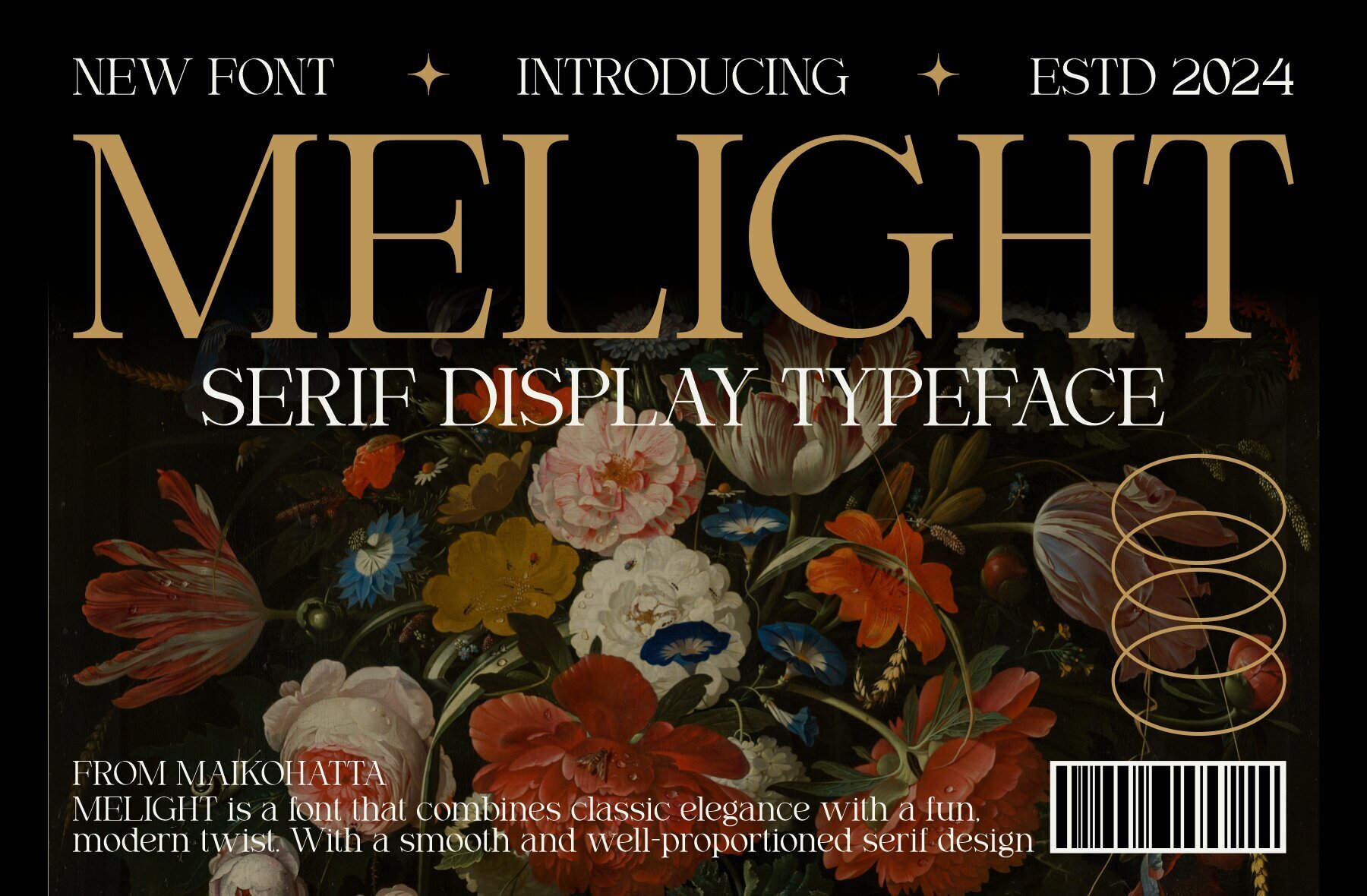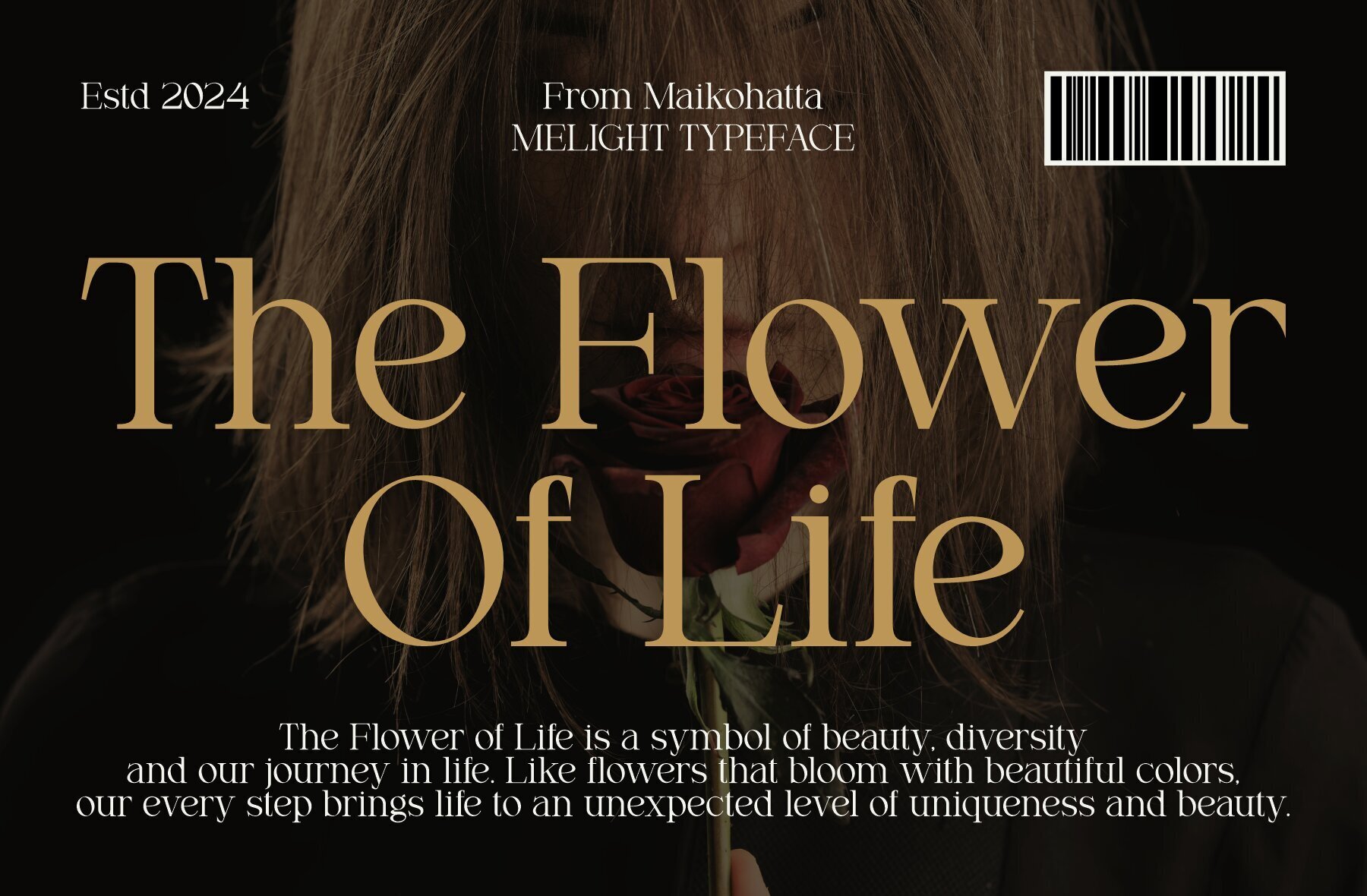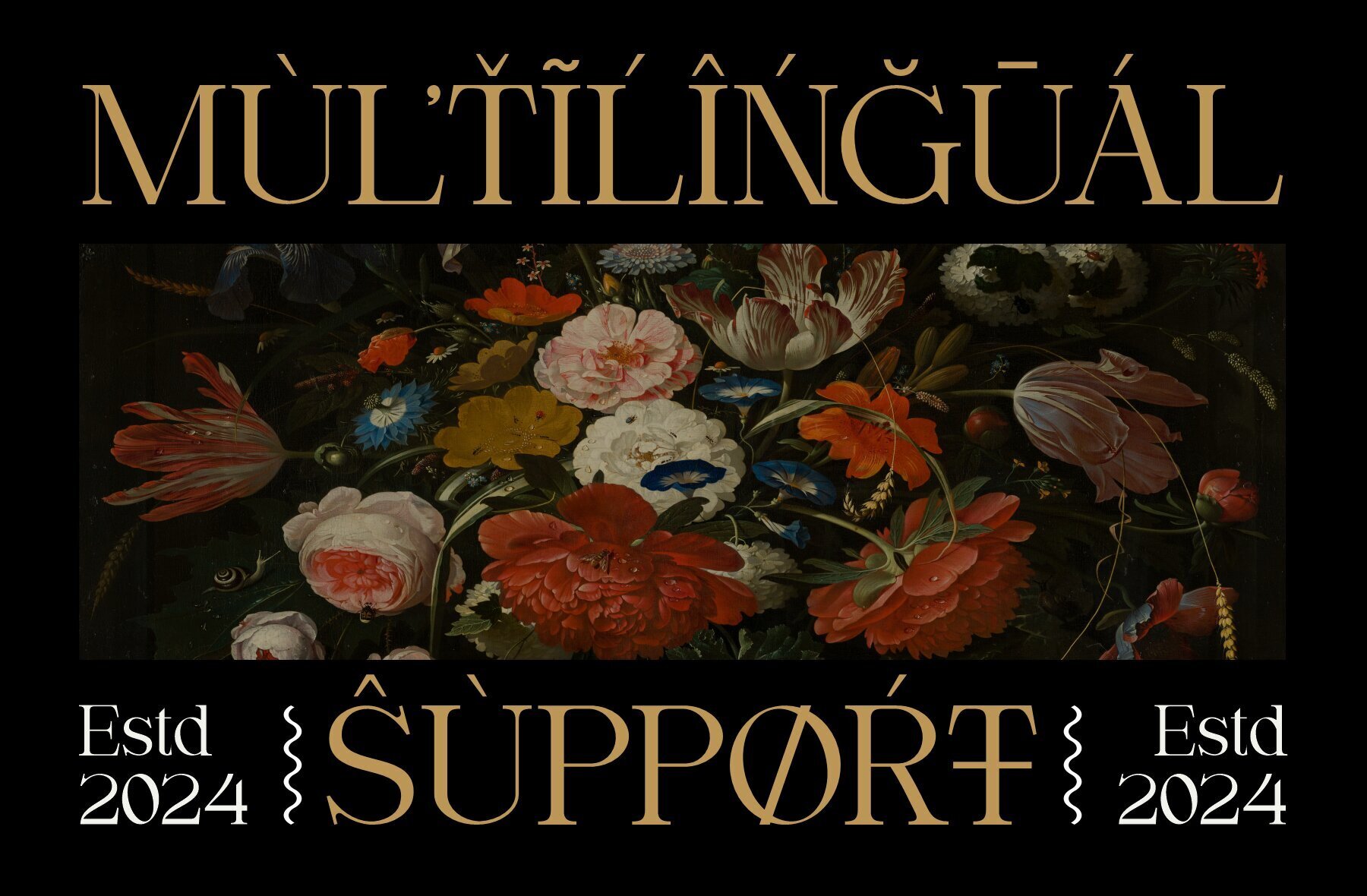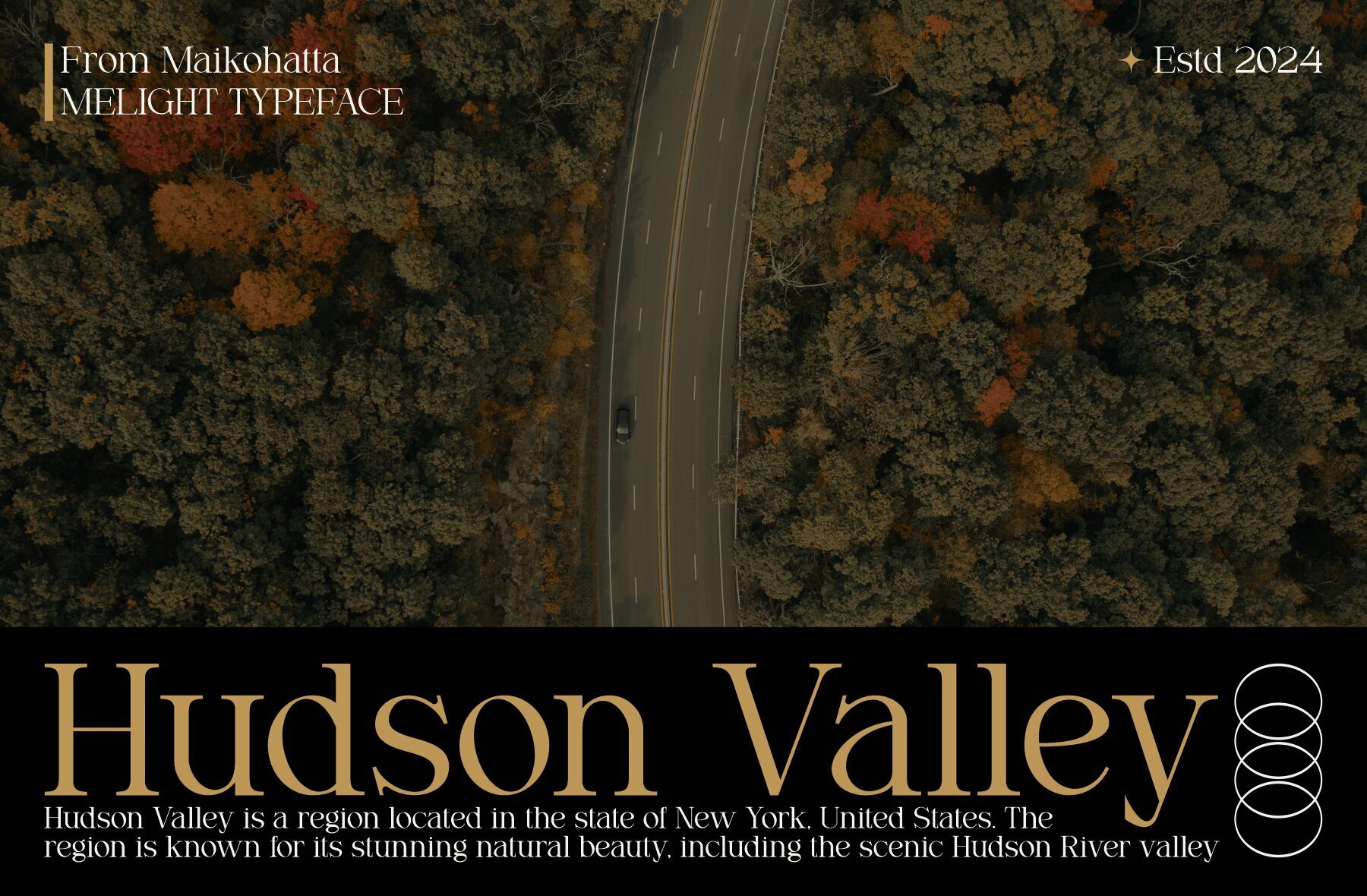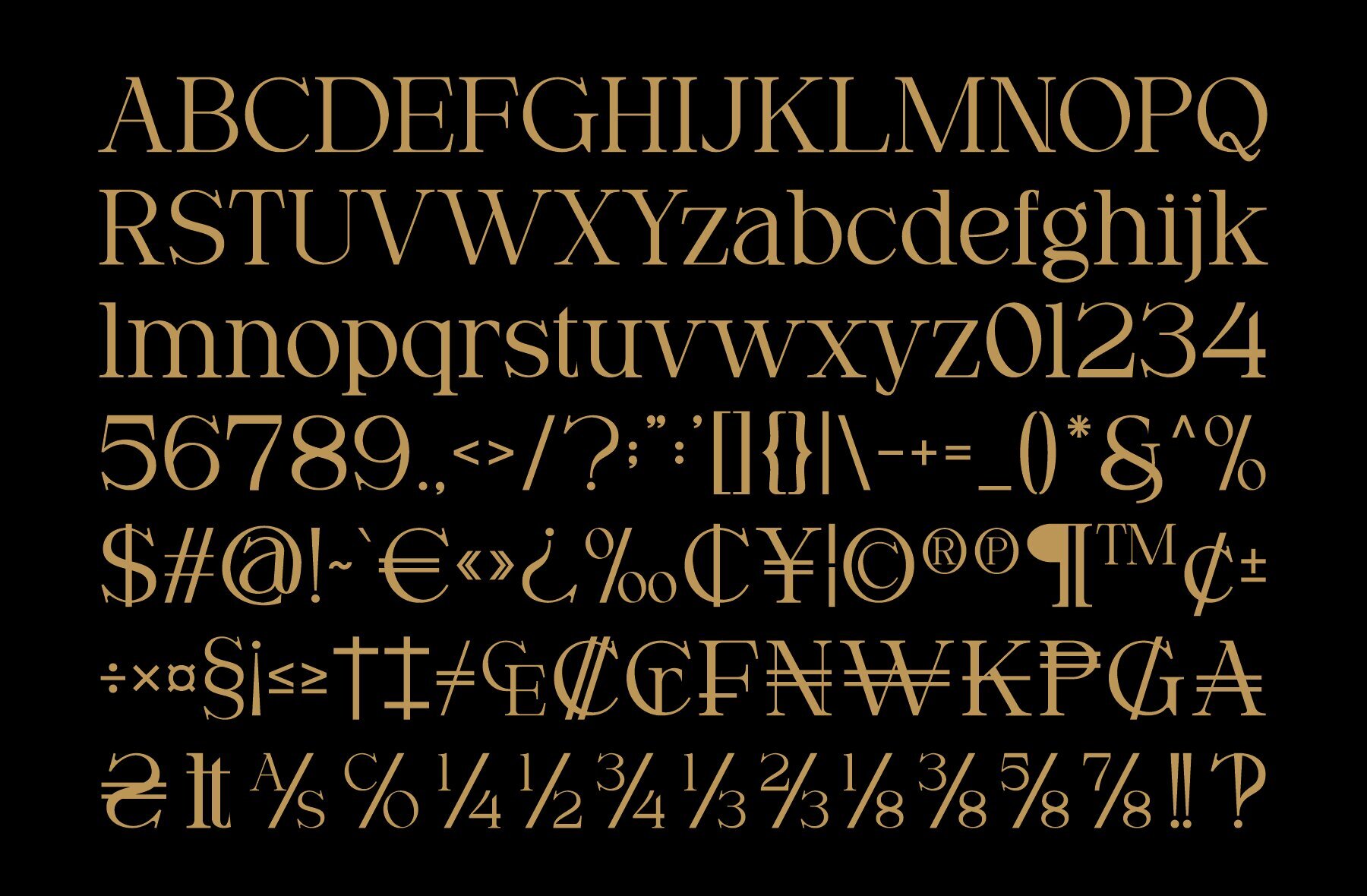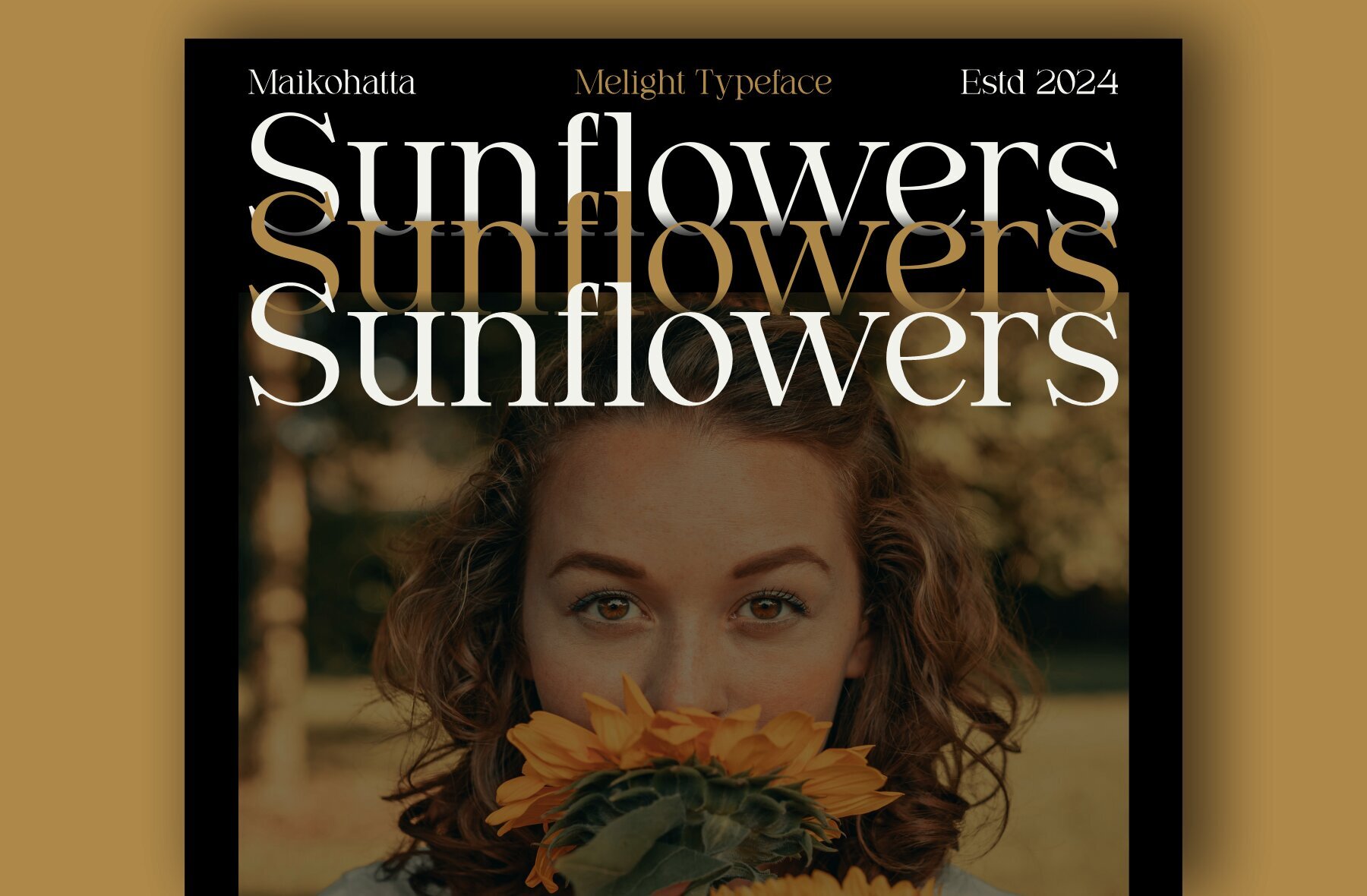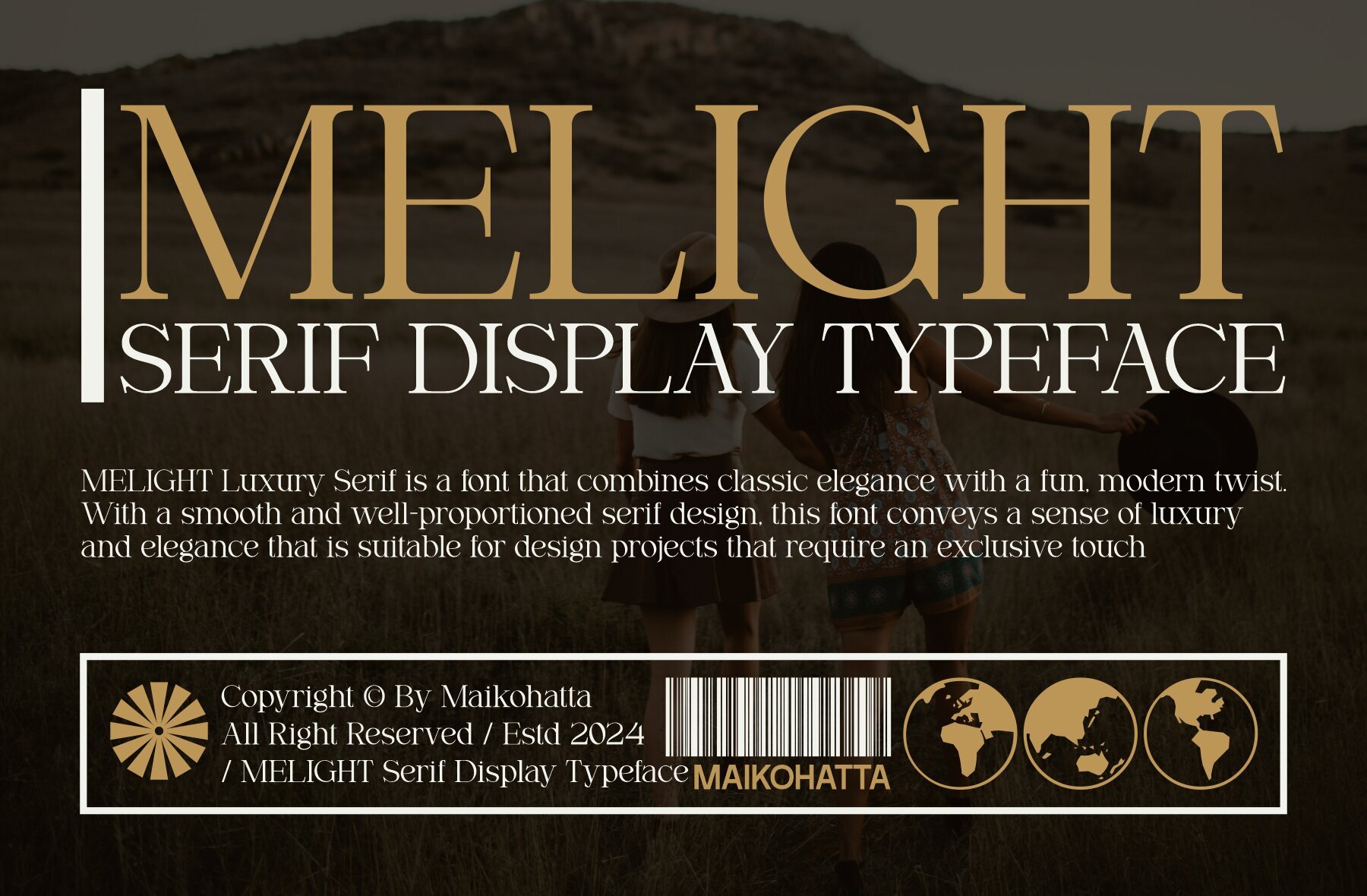
Melight Font
Melight Regular
Melight is a serif display typeface that balances stroke thickness and fineness, delivering visuals that are both attractive and easy to read. This modern serif style is defined by the distinct contrast between its bold and fine lines, offering an understated elegance that makes an impact.Melight: Balanced Serif Display Typeface